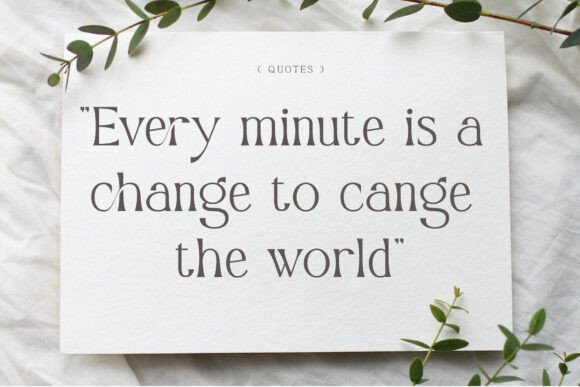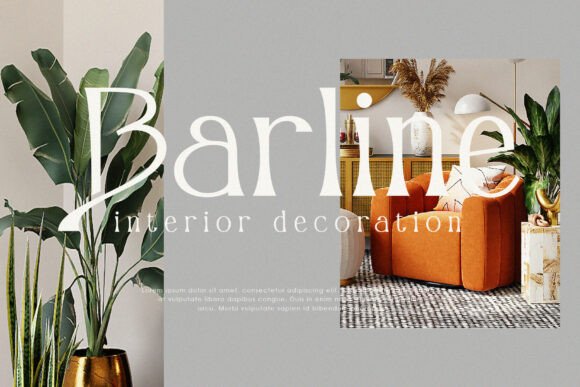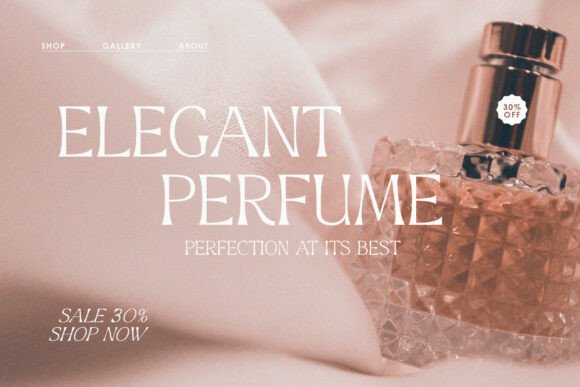
Introduction to Millesa Font
Imagine you’re working on a creative project, and you’re struggling to find the perfect font to match your vision. You scroll through countless options, but nothing seems to capture the essence of your design. This is where Millesa Font comes in – a game-changing addition to any design resource. With its modern and elegant appearance, Millesa Font brings a luxurious and clean style to your projects.
Whether you’re working on a website, a modern logo, branding identity, or social media quotes, Millesa Font is the perfect choice. Its versatility and high-quality design make it a valuable resource for designers. Plus, with a transparent background, you can easily integrate it into your creative project. In this article, we’ll dive deeper into the world of Millesa Font and explore its features, benefits, and uses.
Key Features of Millesa Font
- High-quality font design with a transparent background, making it ideal for creative projects that require a clean and minimalist look.
- Designed with a modern and sleek aesthetic, making it perfect for use in digital design, such as web and mobile applications.
Honest Review: Millesa Font
As a designer, I’m always on the lookout for high-quality design resources that can elevate my creative projects. Recently, I had the chance to try out the Millesa Font, and I must say, it’s a great addition to any designer’s toolkit.
- ✨ High-quality typography: The Millesa Font has a crisp, clean design that’s perfect for headings, titles, and other text elements.
- ✨ Versatile style: This font is suitable for a wide range of creative projects, from modern websites to traditional print materials.
- ⚠️ Limited character set: While the font has a decent range of characters, it’s not as extensive as some other fonts on the market.
- ⚠️ Not suitable for transparent backgrounds: Due to its solid design, the Millesa Font may not be the best choice for designs with transparent backgrounds.
Overall, I’m impressed with the Millesa Font, and I think it’s a great resource for designers. While it may not be perfect, its high-quality typography and versatile style make it a valuable addition to any design library.
Millesa Font
Tips for Getting the Most Out of Millesa Font
To maximize the effectiveness of the Millesa Font, experiment with different font sizes, colors, and combinations. This will help you unlock its full creative potential.
The Millesa Font is suitable for a wide range of applications, including logos, social media graphics, and marketing materials. Its high quality and versatility make it an excellent choice for designers and non-designers alike.